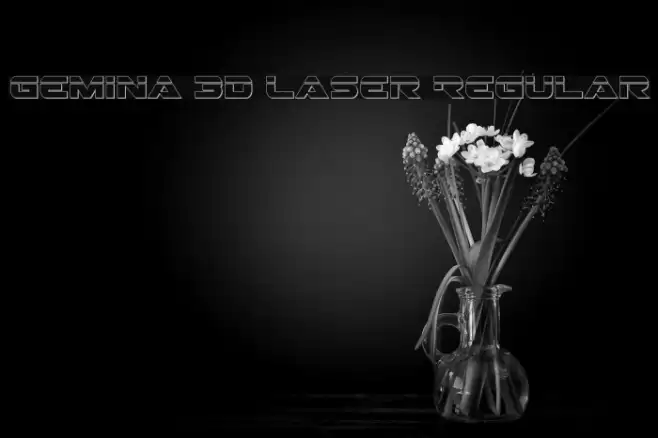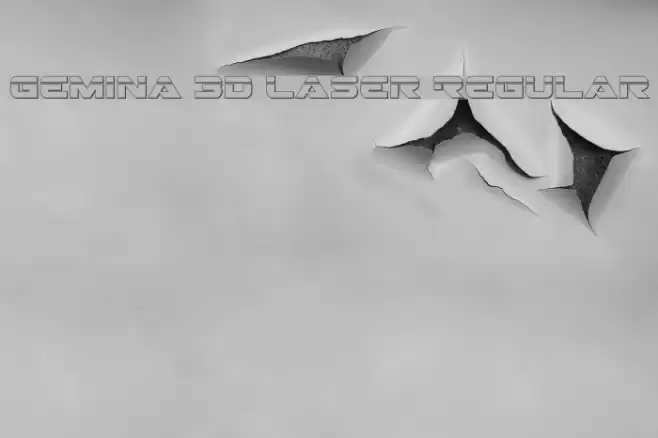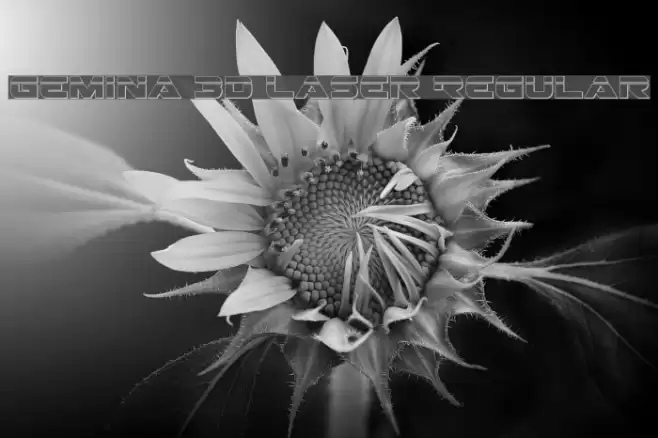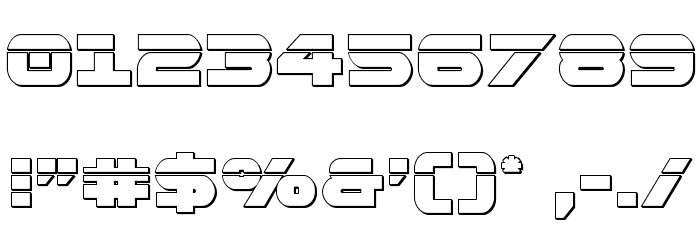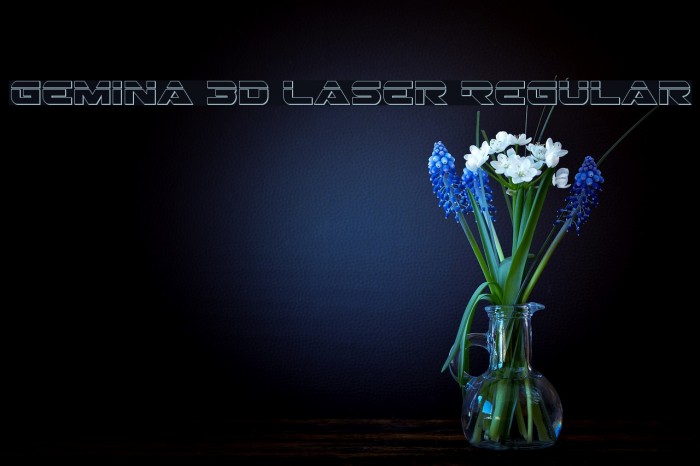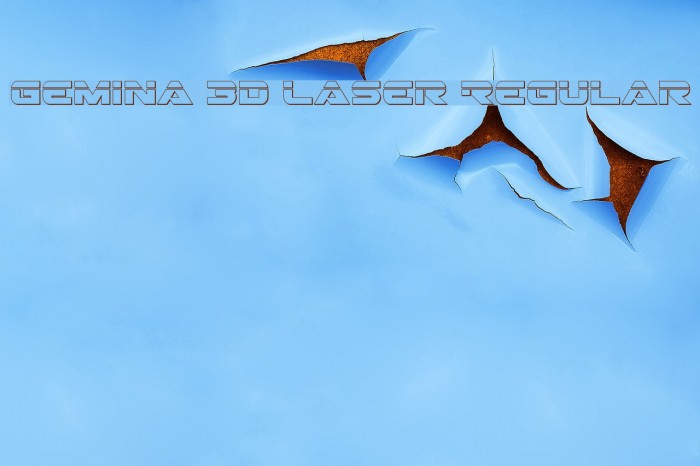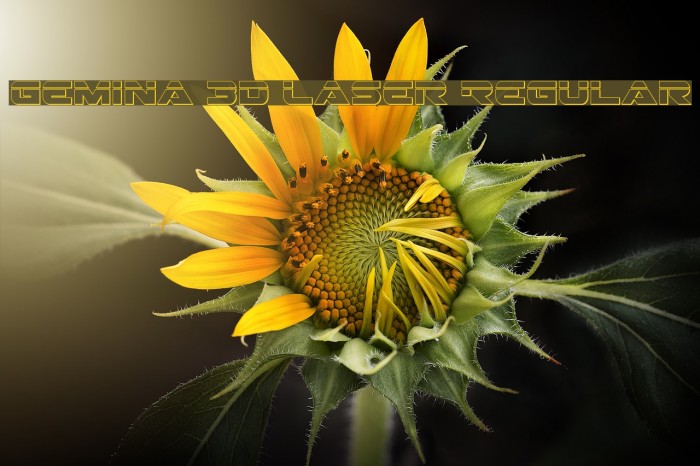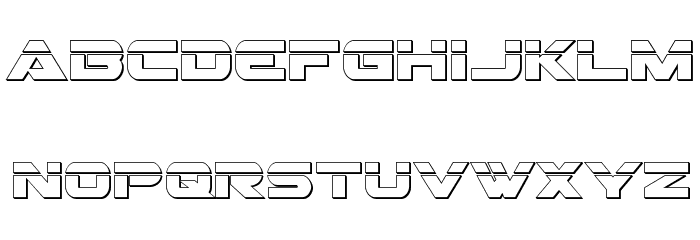
Gemina 3D Laser Regular Font
Gemina 3D Laser Regular Description
This font features a futuristic and geometric design, characterized by its three-dimensional appearance. The letters are constructed with bold, angular lines that create a sense of depth and dimension. The style is reminiscent of digital or sci-fi aesthetics, making it suitable for modern and tech-oriented projects. The uppercase and lowercase letters maintain a consistent structure, enhancing readability while still offering a unique visual appeal. The numbers and special characters follow the same design principles, ensuring a cohesive look across all glyphs.
A futuristic, 3D geometric font with bold, angular lines from Uncategorized fonts.
- Proposed Projects: Ideal for tech branding, sci-fi posters, video game titles, and digital media.